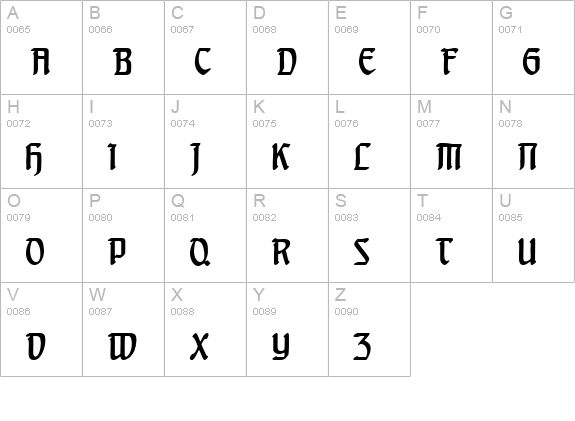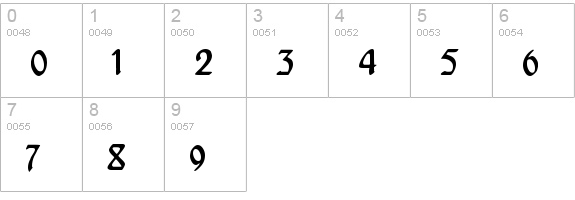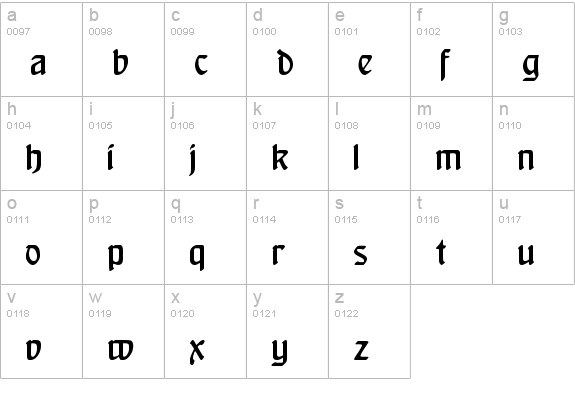
Behrensschrift is a stunning font that exudes elegance and sophistication. Its delicate, yet bold letterforms make it perfect for a wide range of design projects, from branding to editorial design. The timeless quality of Behrensschrift adds a touch of class to any project, making it a versatile choice for designers looking to make a statement. What sets Behrensschrift apart is not only its beauty, but also the fact that it is completely free to download. Available at FontsMarket.com, this font can be easily accessed by anyone looking to add a touch of refinement to their work without breaking the bank. With Behrensschrift, you can elevate your designs and create a lasting impression on your audience, all for no cost at all.